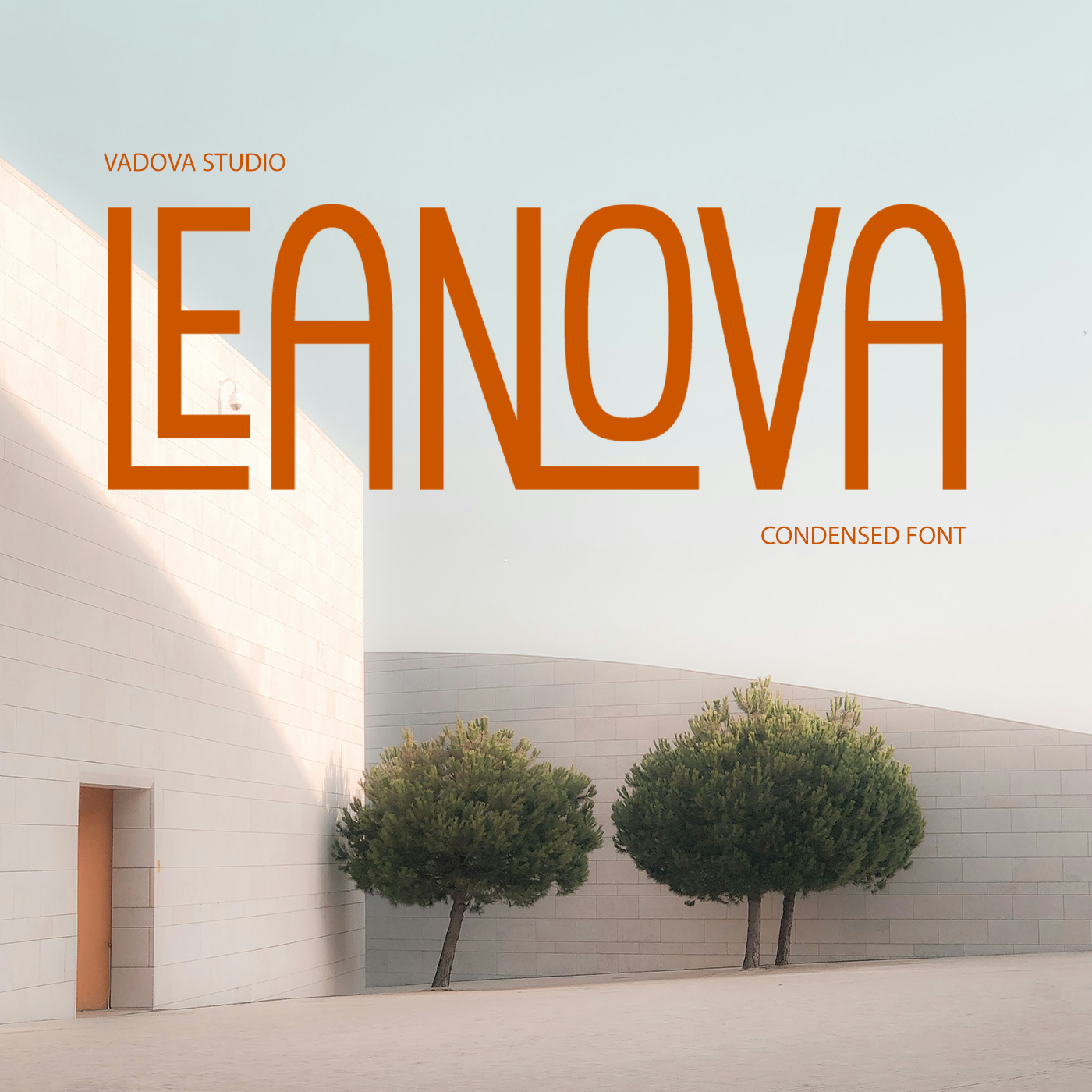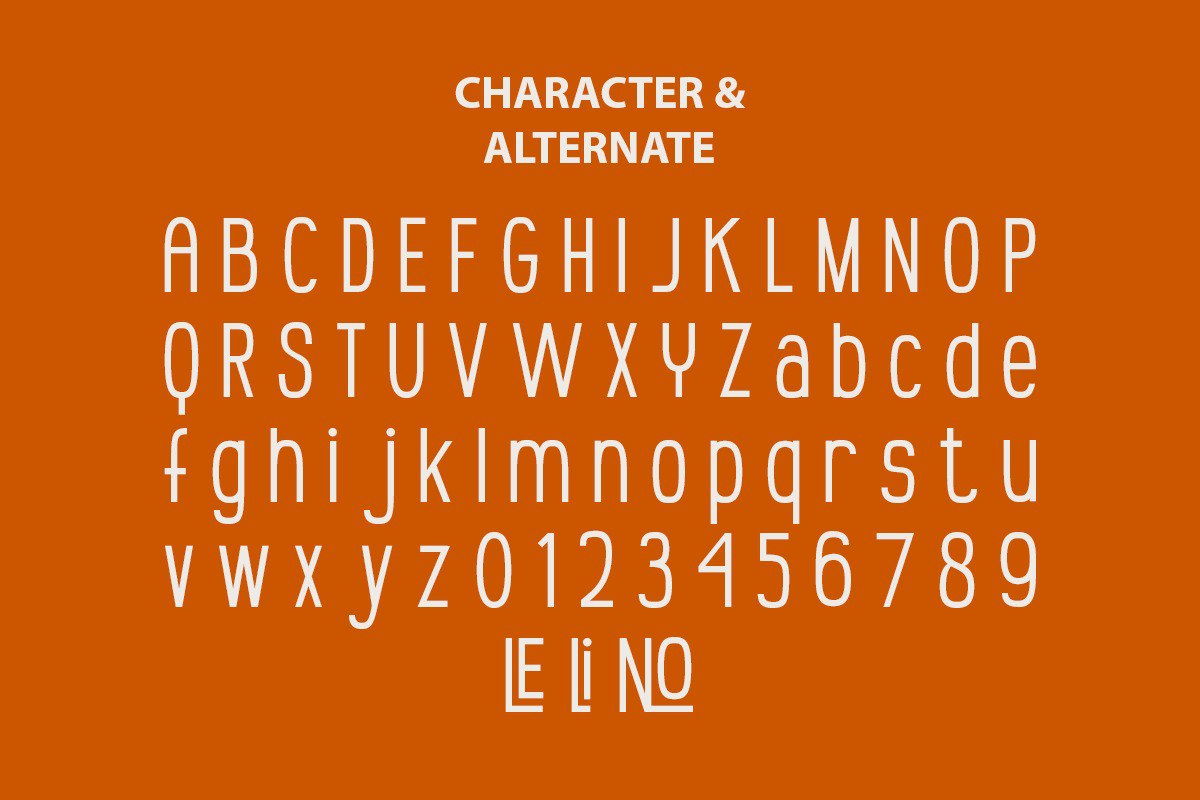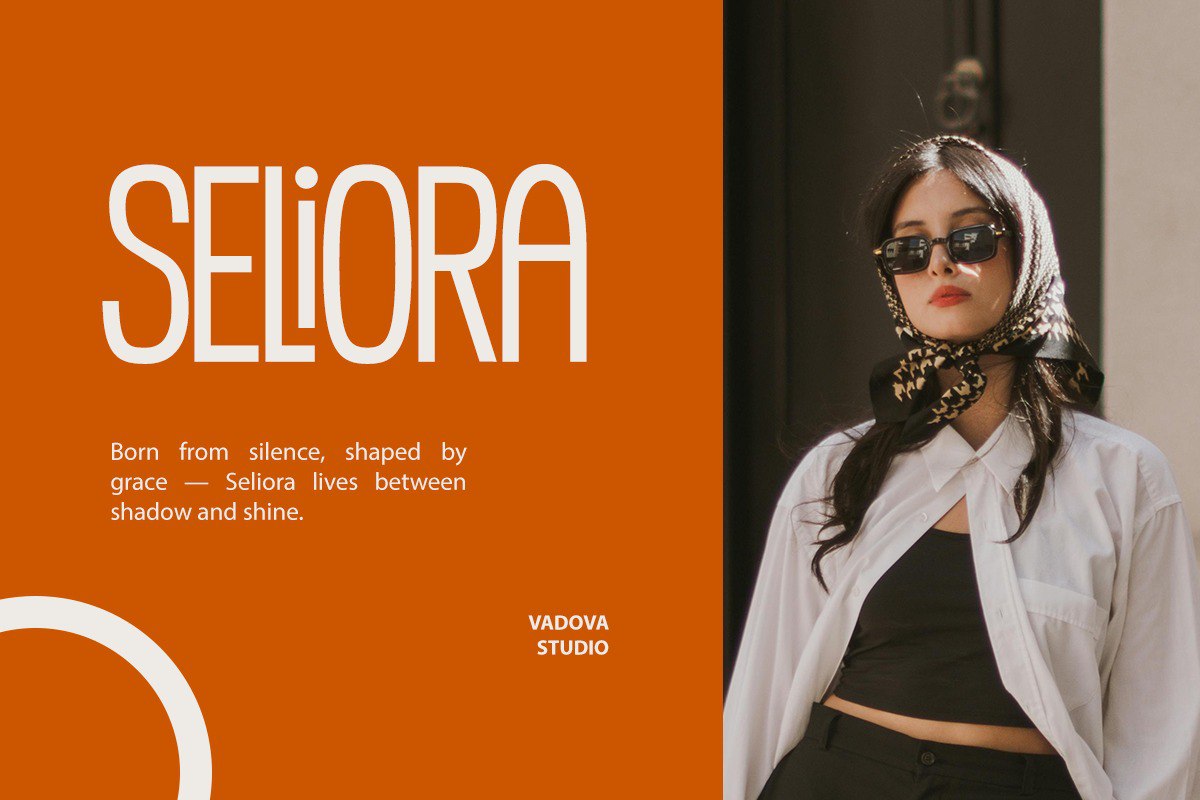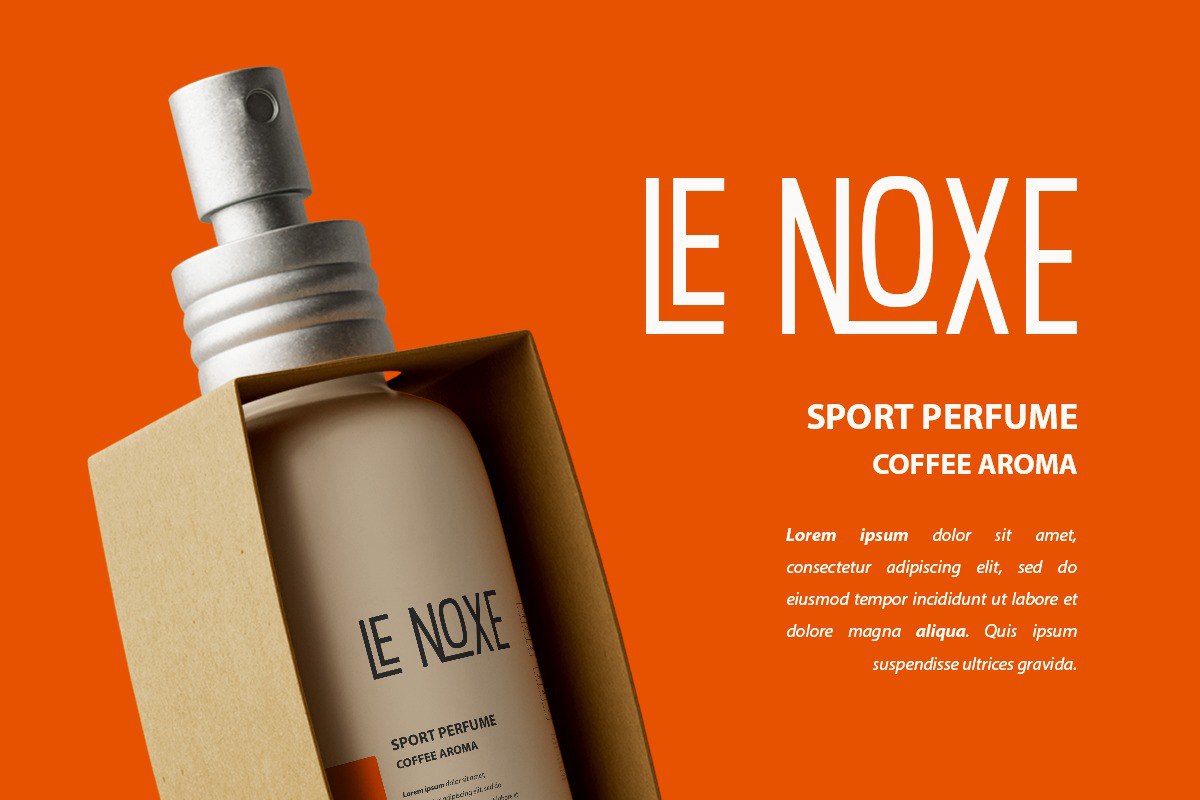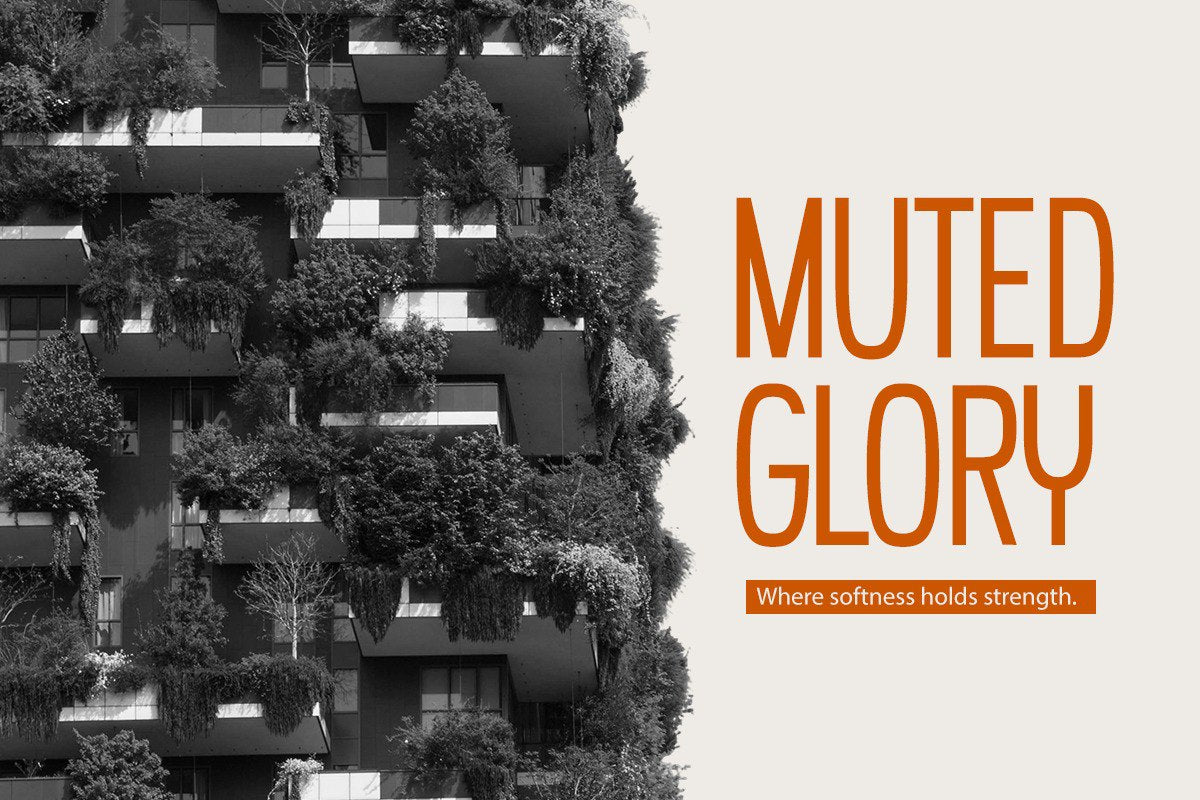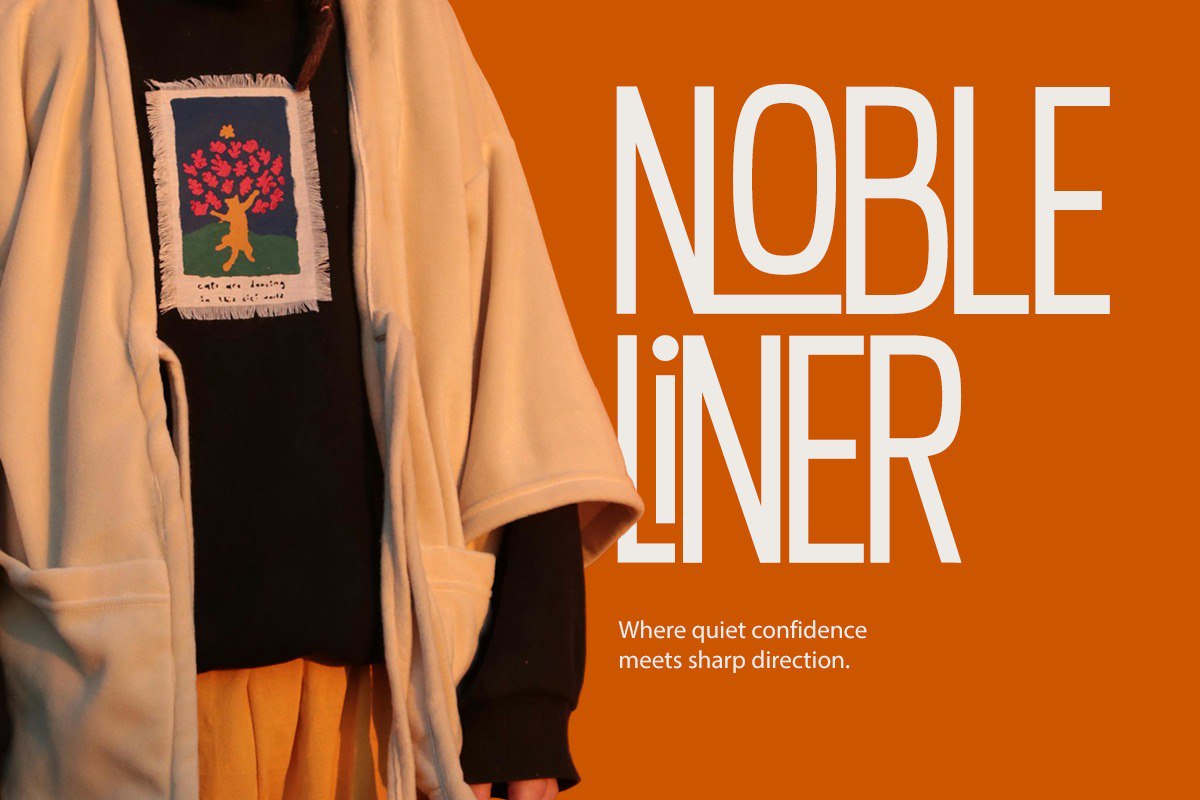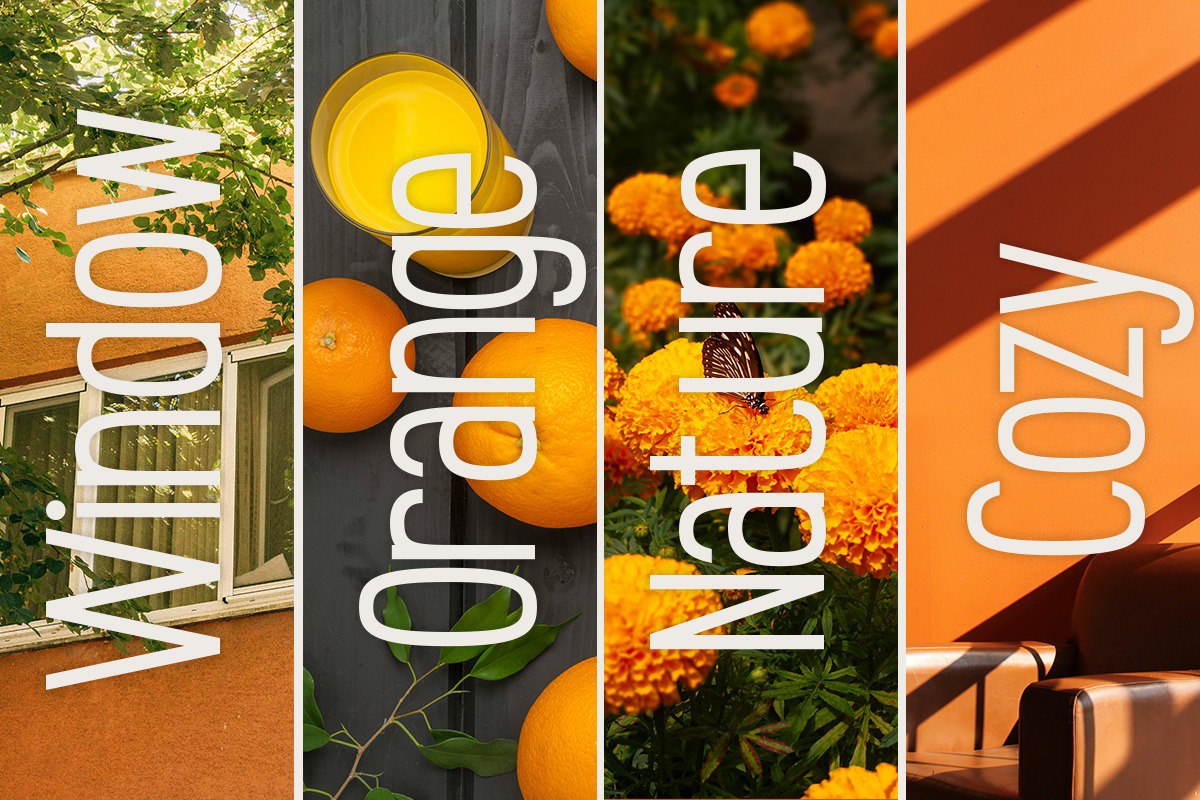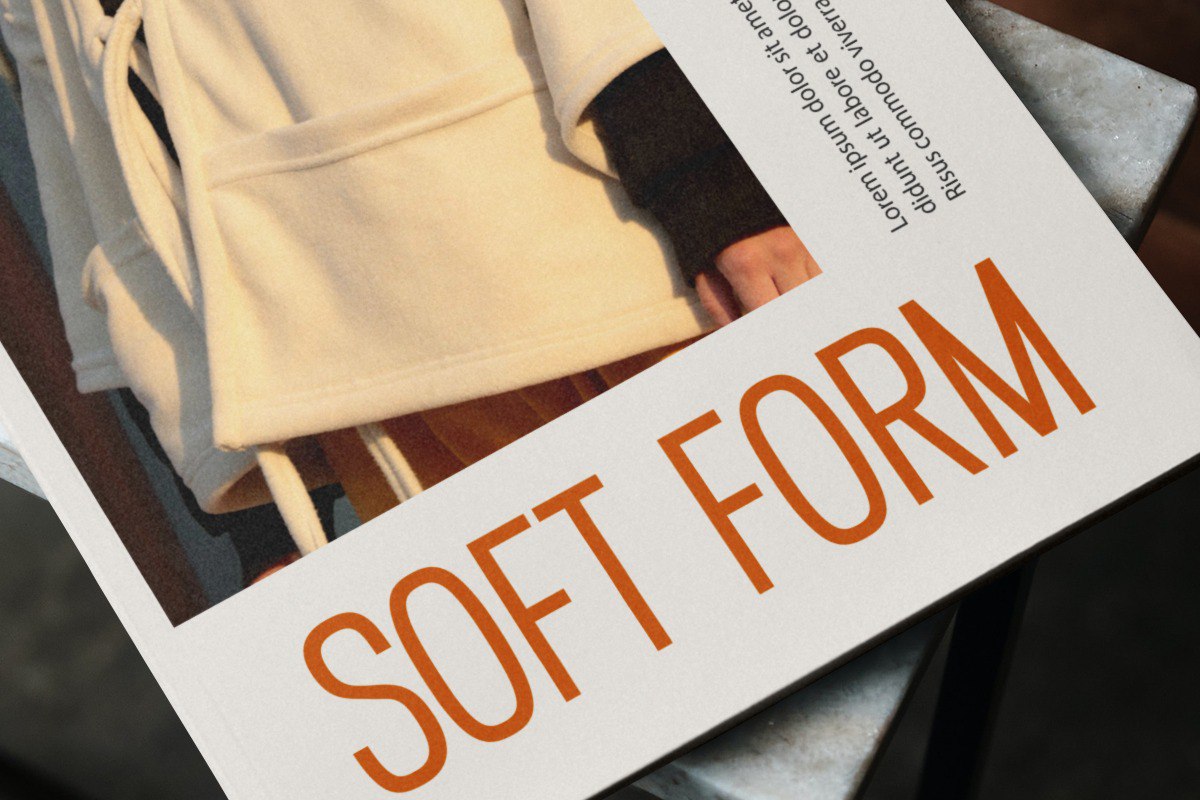
Leanova Condensed Font
Leanova is a bold and condensed sans serif typeface that brings modern edge and strength to any design. With clean lines and a tall structure, it's perfect for headlines, packaging, branding, fashion campaigns, and editorial layouts. Its versatile style effortlessly fits both minimalist architecture themes and bold contemporary visuals, ensuring maximum impact with a sleek professional tone.
Leanova Condensed Font is a bold, condensed sans serif typeface featuring clean lines and a tall structure. It includes uppercase and lowercase characters, numerals, and punctuation, and is available in TTF, OTF, and WOFF formats.